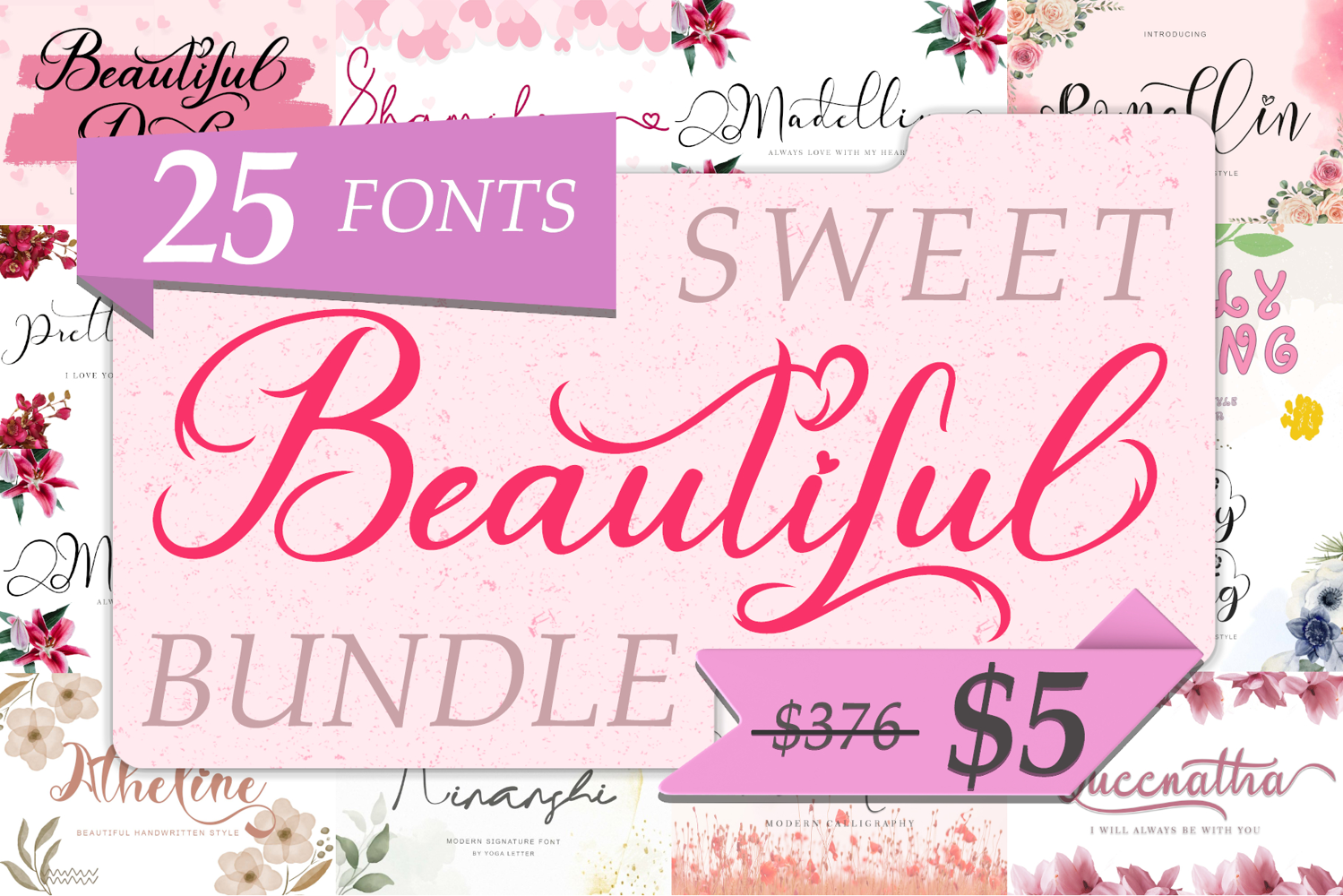
Beautiful Sweet Bundle
Complete font for all your work.
This bundle contains 25 beautiful fonts :
1. Beautiful Dealove https://fontbundles.net/yogaletter6/6583651-beautiful-dealove
2. ⁠Atheline https://fontbundles.net/yogaletter6/2713937-atheline
3. ⁠Christmas Celebration https://fontbundles.net/yogaletter6/2284418-christmas-celebration
4. ⁠Queenatha https://fontbundles.net/yogaletter6/952299-queenatha
5. ⁠Pretty Willie https://fontbundles.net/yogaletter6/952300-pretty-willie
6. ⁠Maretha https://fontbundles.net/yogaletter6/954476-maretha
7. ⁠Shamilove https://fontbundles.net/yogaletter6/1117290-shamilove
8. ⁠Madelline https://fontbundles.net/yogaletter6/943280-madelline
9. ⁠Tough Mother https://fontbundles.net/yogaletter6/3421257-tough-mother
10. ⁠Peggy Spring https://fontbundles.net/yogaletter6/3574455-peggy-spring
11. ⁠Unique Easter https://fontbundles.net/yogaletter6/3370981-unique-easter
12. ⁠Easter Humorous https://fontbundles.net/yogaletter6/3330901-easter-humorous
13. ⁠Curly Spring https://fontbundles.net/yogaletter6/3288557-curly-spring
14. ⁠Anabela Christmas https://fontbundles.net/yogaletter6/2776402-anabela-christmas
15. ⁠Santoria Christmas https://fontbundles.net/yogaletter6/2764316-santoria-christmas
16. ⁠Romellin https://fontbundles.net/yogaletter6/2739069-romellin
17. ⁠Malikasthi https://fontbundles.net/yogaletter6/2735169-malikasthi
18. ⁠Akhilona https://fontbundles.net/yogaletter6/2733119-akhilona
19. ⁠Barbie Doll https://fontbundles.net/yogaletter6/2723592-barbie-doll
20. ⁠Restine https://fontbundles.net/yogaletter6/2720172-restine
21. ⁠Darling Soulmate https://fontbundles.net/yogaletter6/2716513-darling-soulmate
22. ⁠Father Love https://fontbundles.net/yogaletter6/2644586-father-love
23. ⁠Kinanshi https://fontbundles.net/yogaletter6/2591614-kinanshi
24. ⁠Arkite https://fontbundles.net/yogaletter6/2546250-arkite
25. ⁠Christmas Shadow https://fontbundles.net/yogaletter6/2715420-christmas-shadow